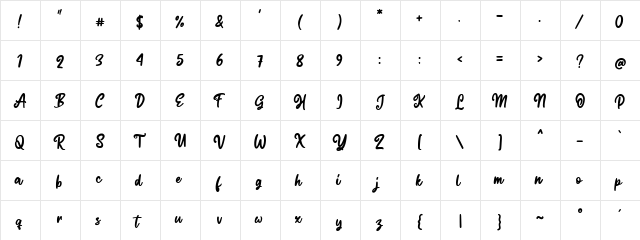
Regitta Regular
| Foundry | Weape Studio |
| Designer | Wahyu Andi Prasetiyo |
Design Context for Regitta Typeface
Regitta is a composed and adaptable typeface that performs quietly and consistently across a wide range of design contexts.